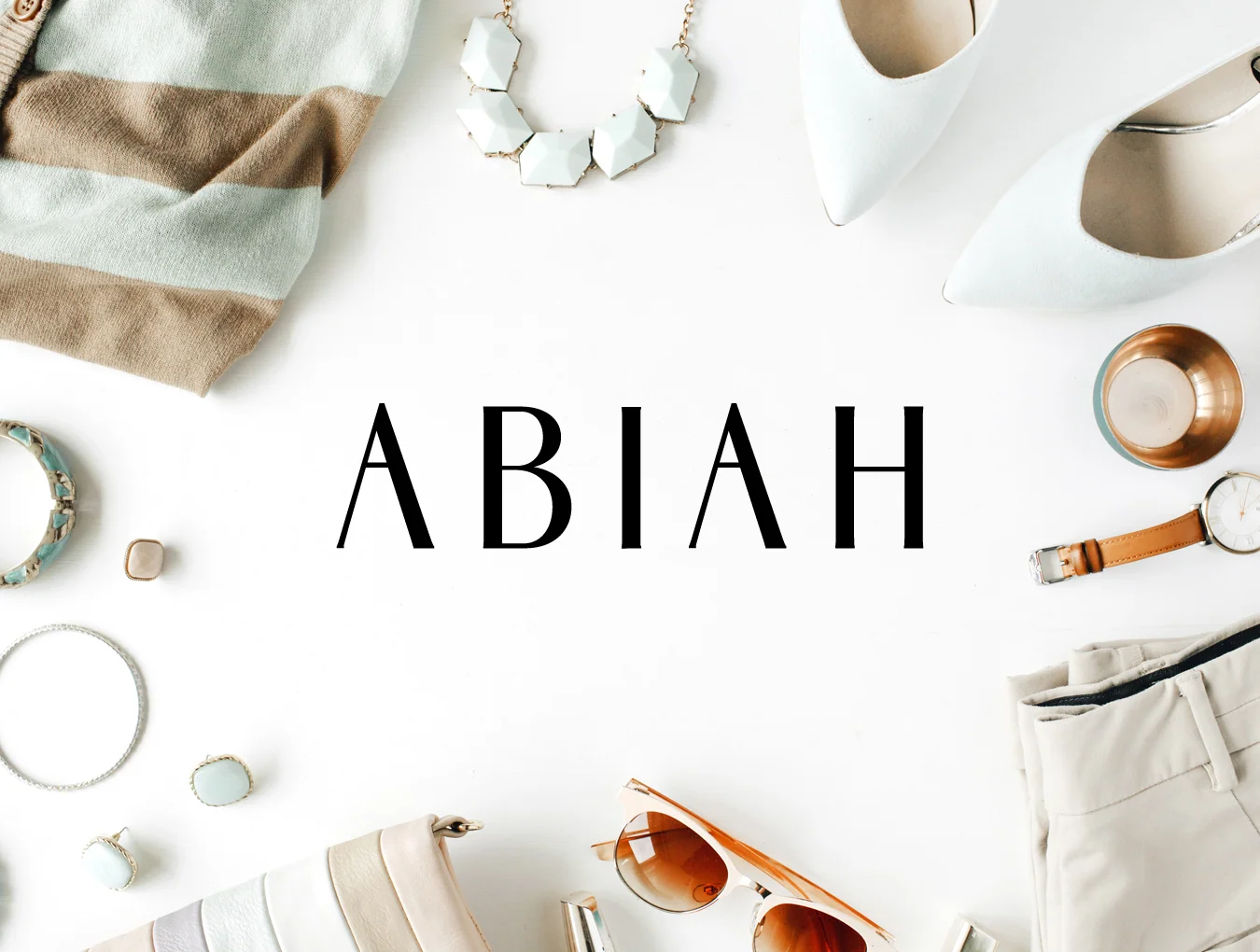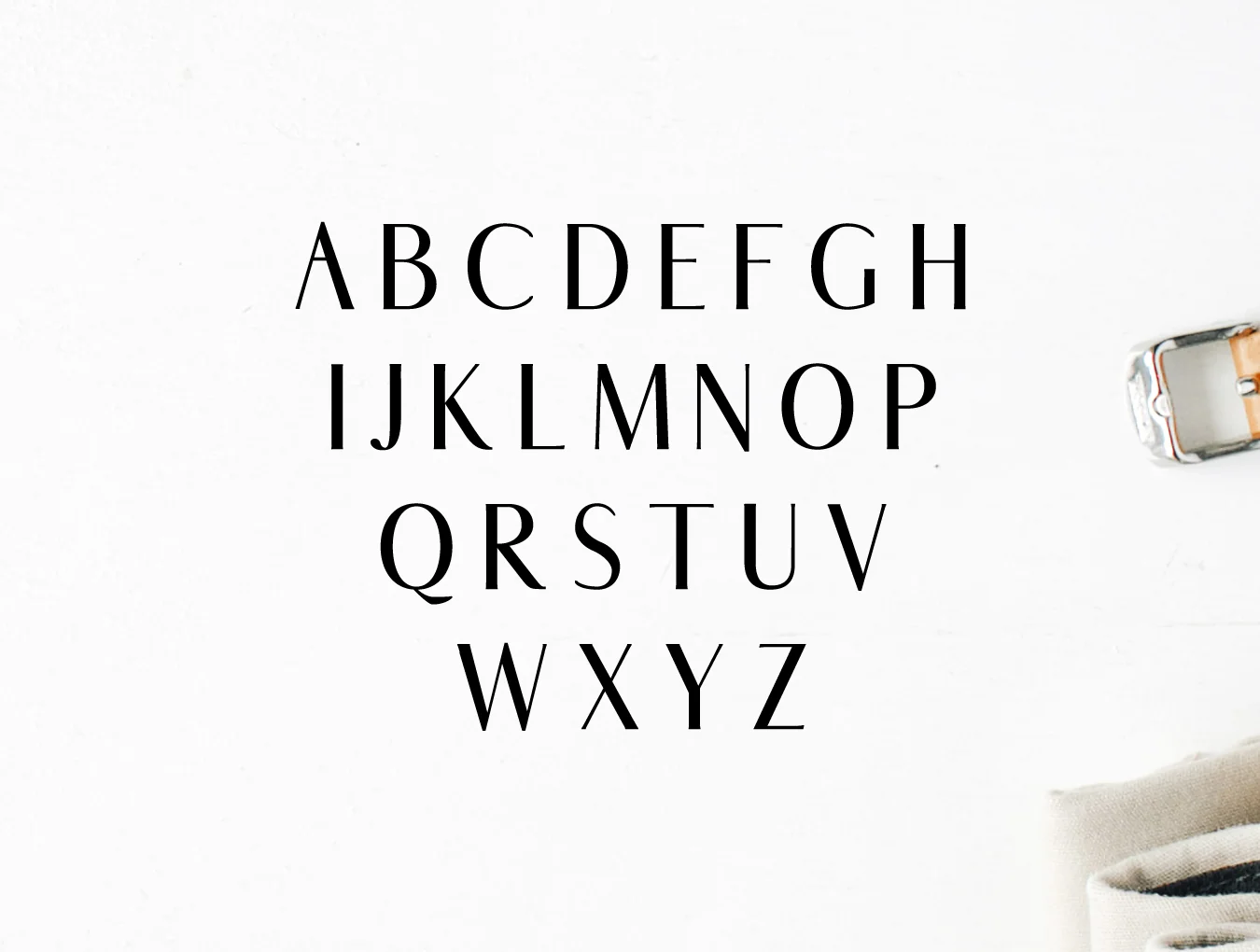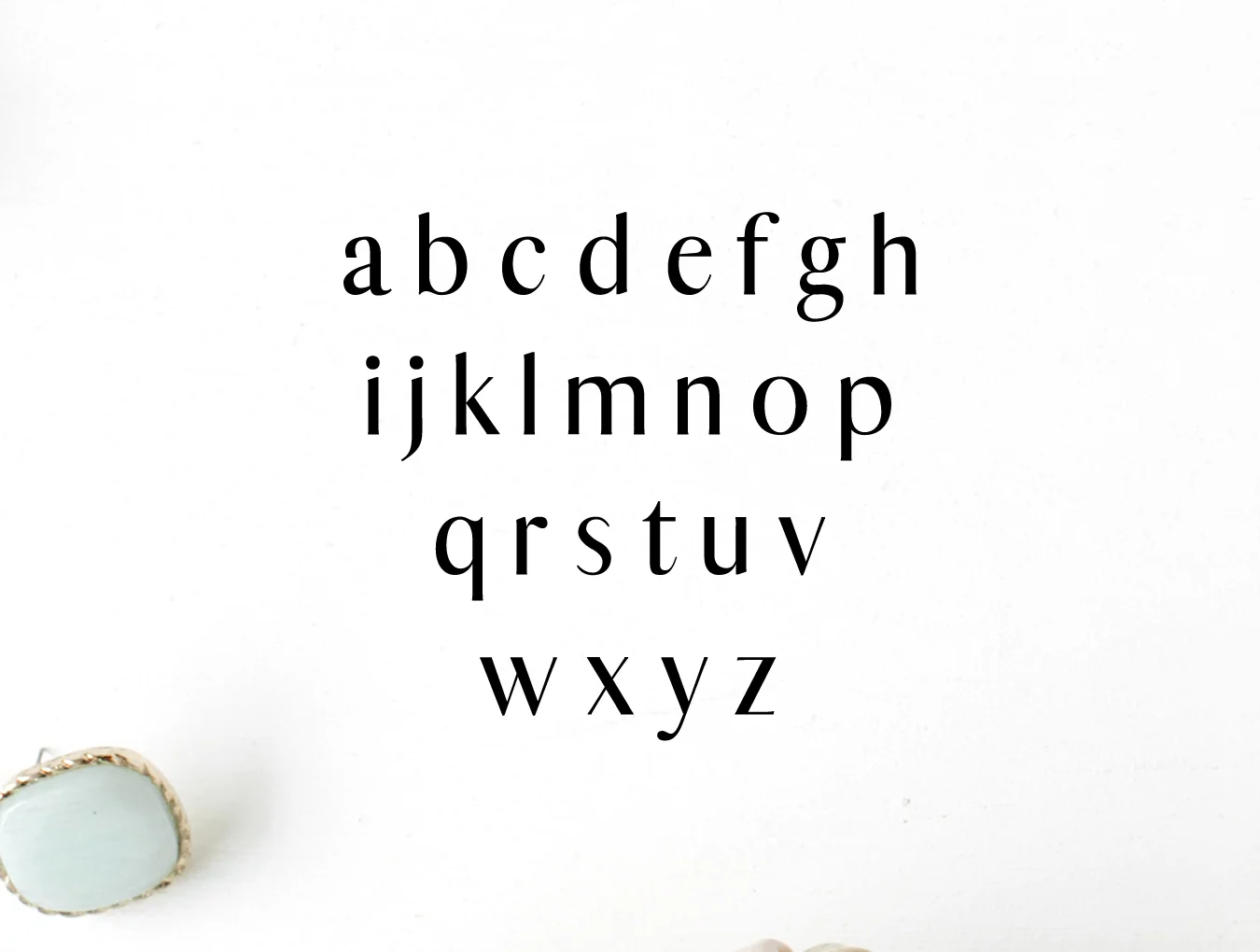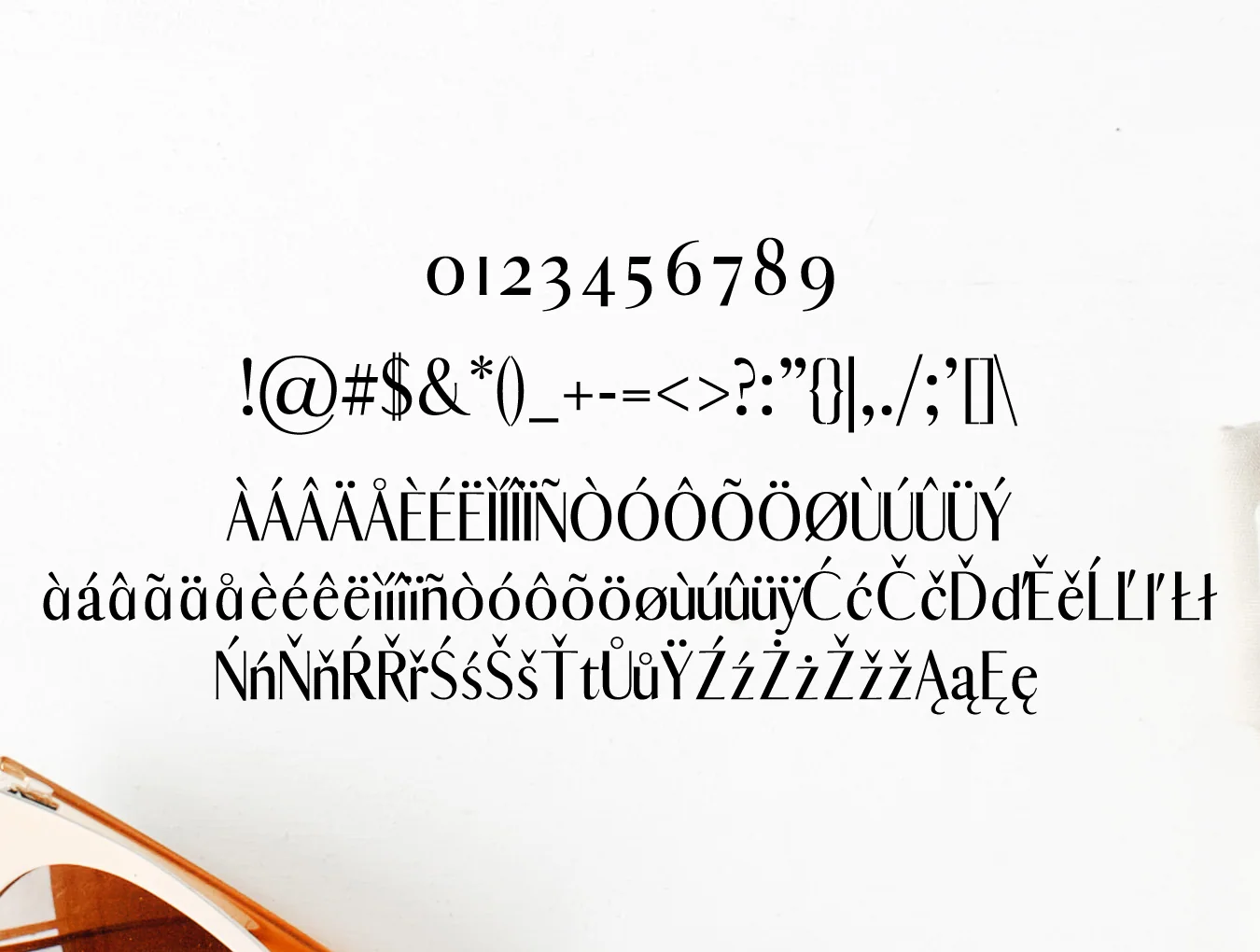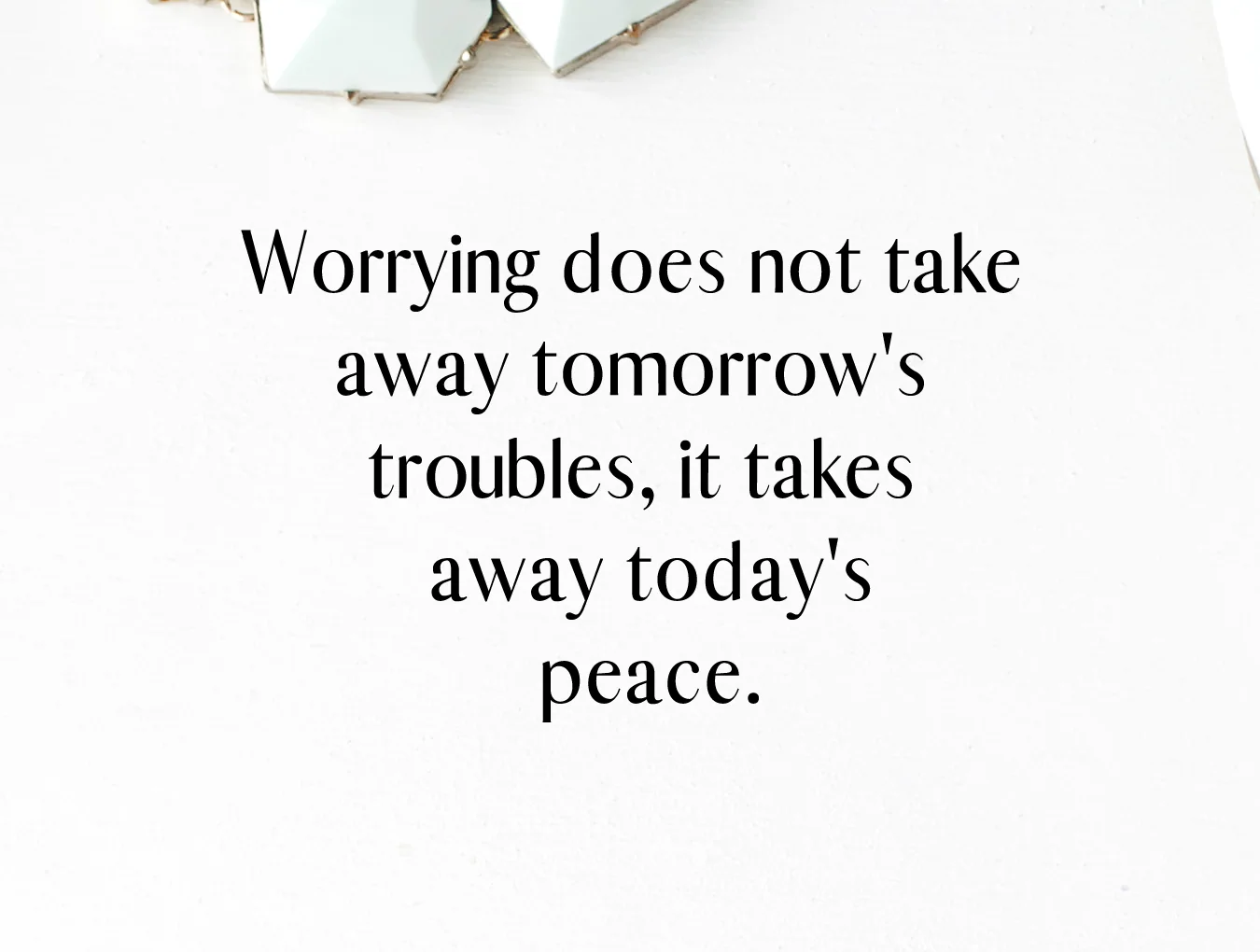
Abiah Sans Serif Typeface
Sans-serif typeface style
Regular and Thin weights
Abiah Sans Serif Typeface is a clean, minimal font family with 5 weights and a distinctive modern style. Ideal for elegant logos, headlines, websites, and branding, it shines in widely spaced uppercase for a refined feel, or in mixed case for a timeless, polished look.